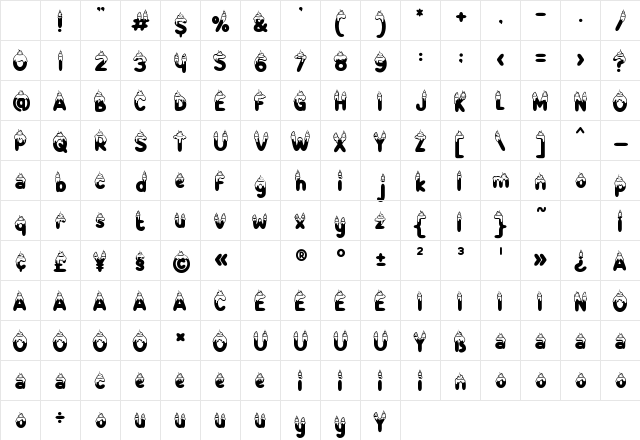
Complete Cake Couture Nine Regular glyph index. Displaying only characters natively supported by Cake Couture Nine Regular font.
Cake Couture Nine is a composed and adaptable typeface that performs quietly and consistently across a wide range of design contexts.